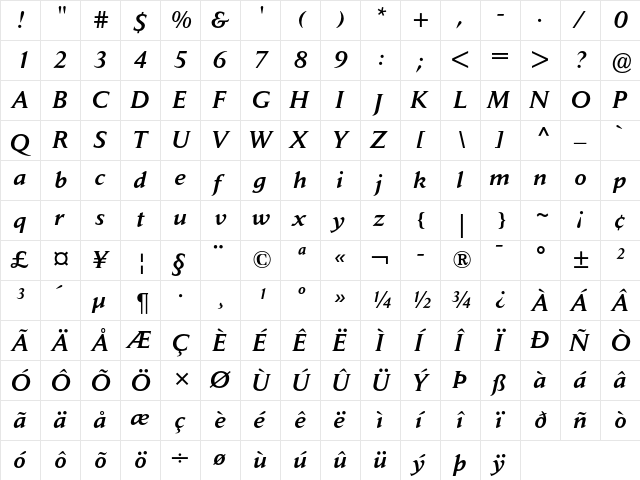
Jaeger Daily News Medium Italic Font Preview
Jaeger Daily News Medium Italic
Jaeger Daily News Medium Italic Font Details
| Style | Medium Italic |
Design Context for Jaeger Daily News Typeface
Jaeger Daily News offers clean, dependable letterforms without strong stylistic allegiance, making it a practical choice for designers who need flexibility. The dynamic lean of this cut emphasises speed and emphasis in any layout.